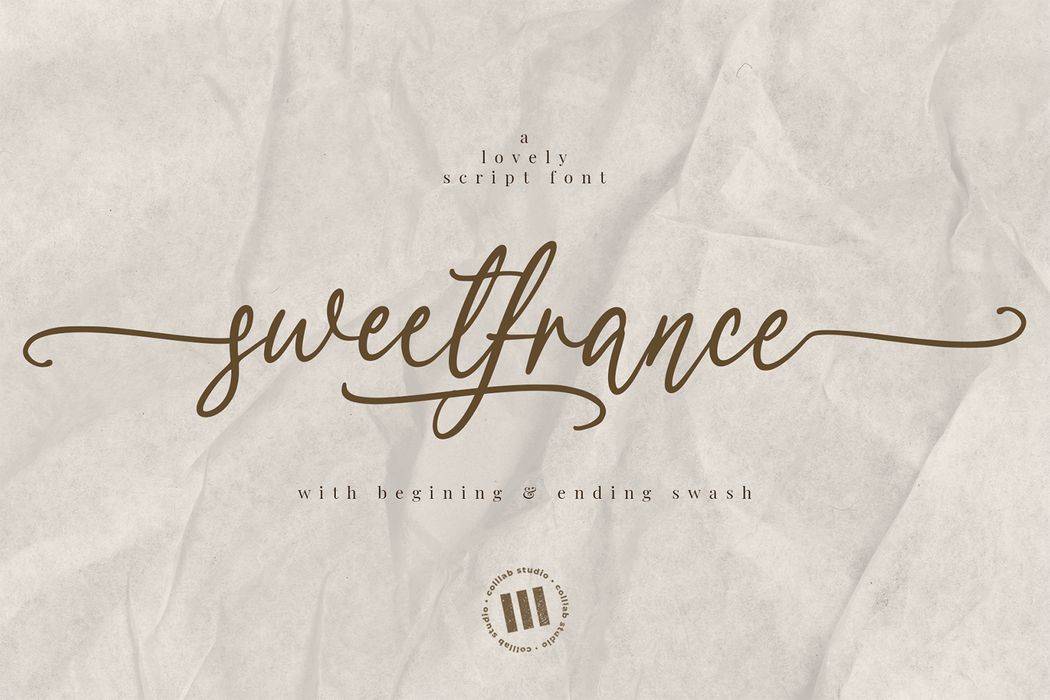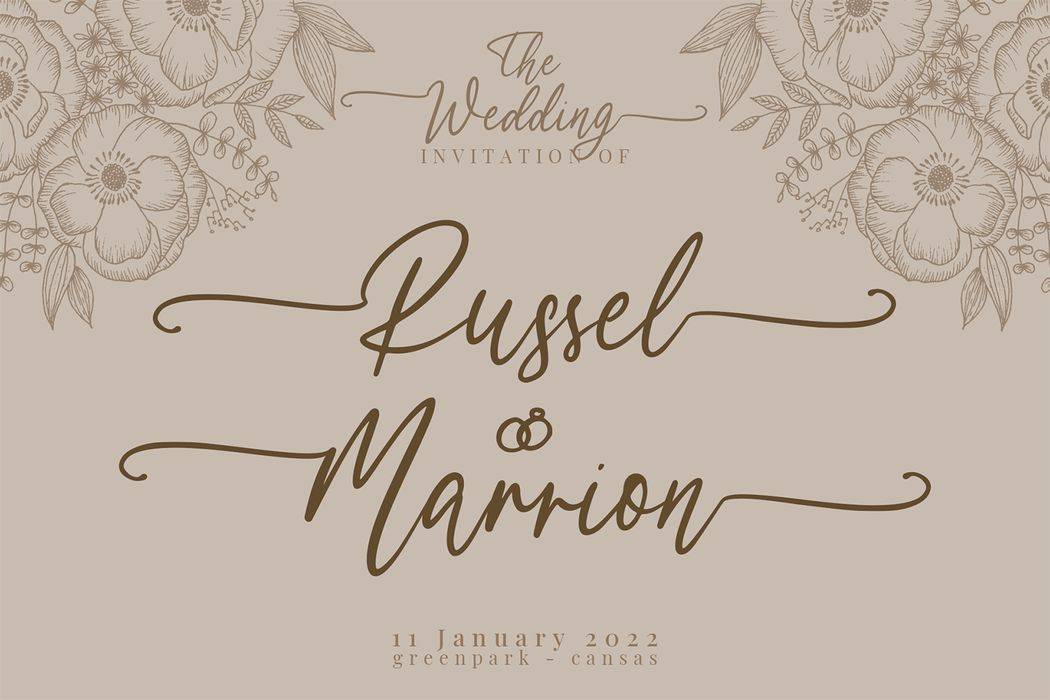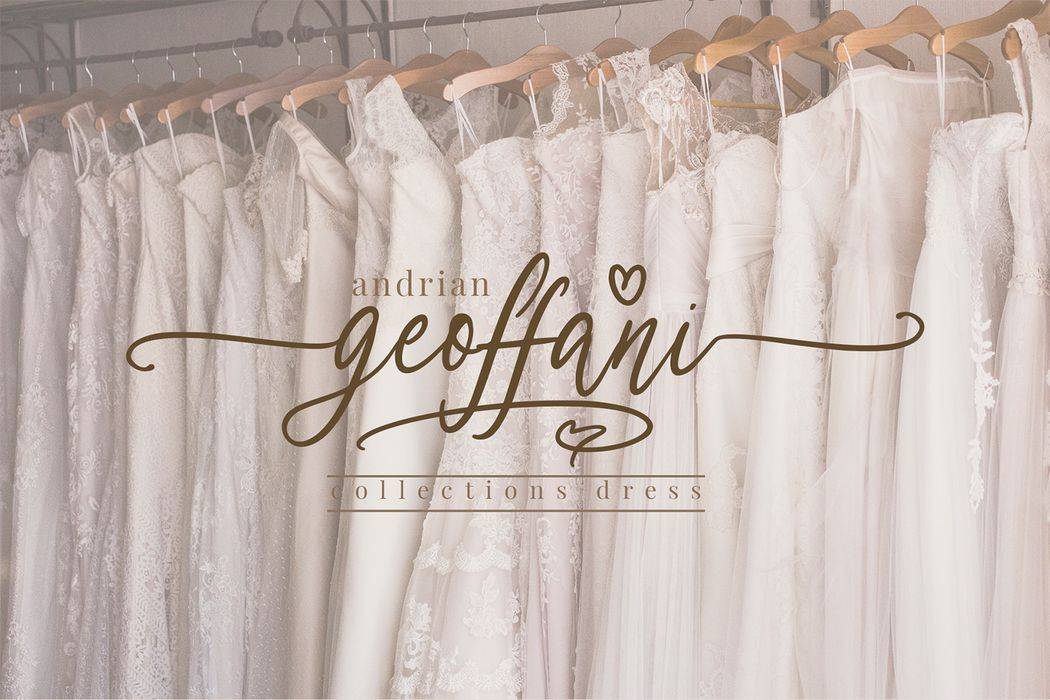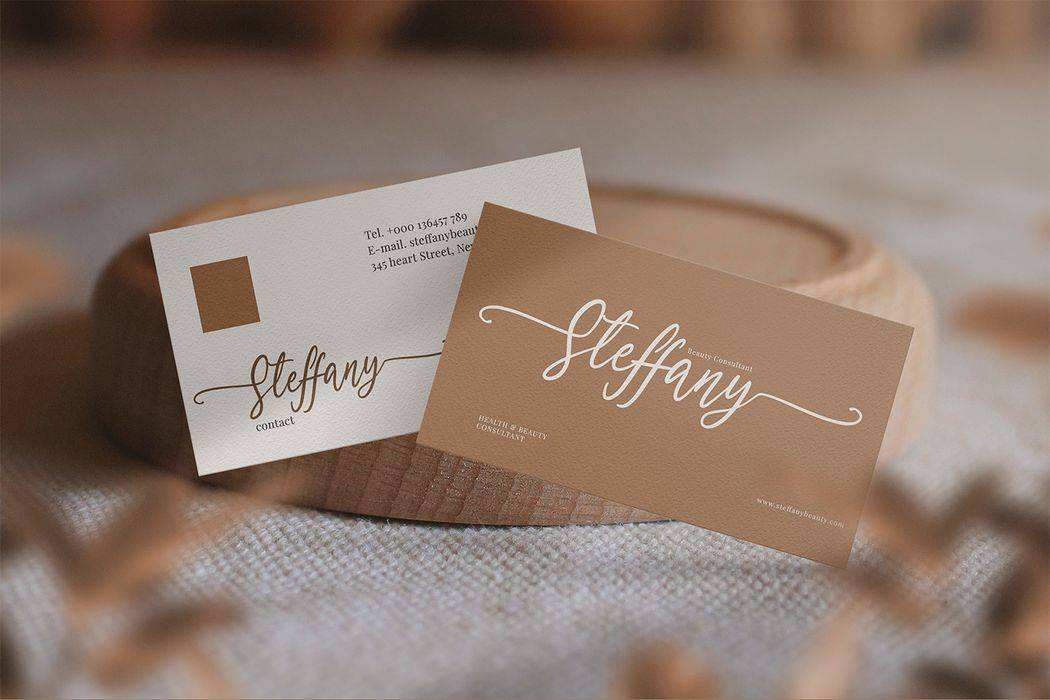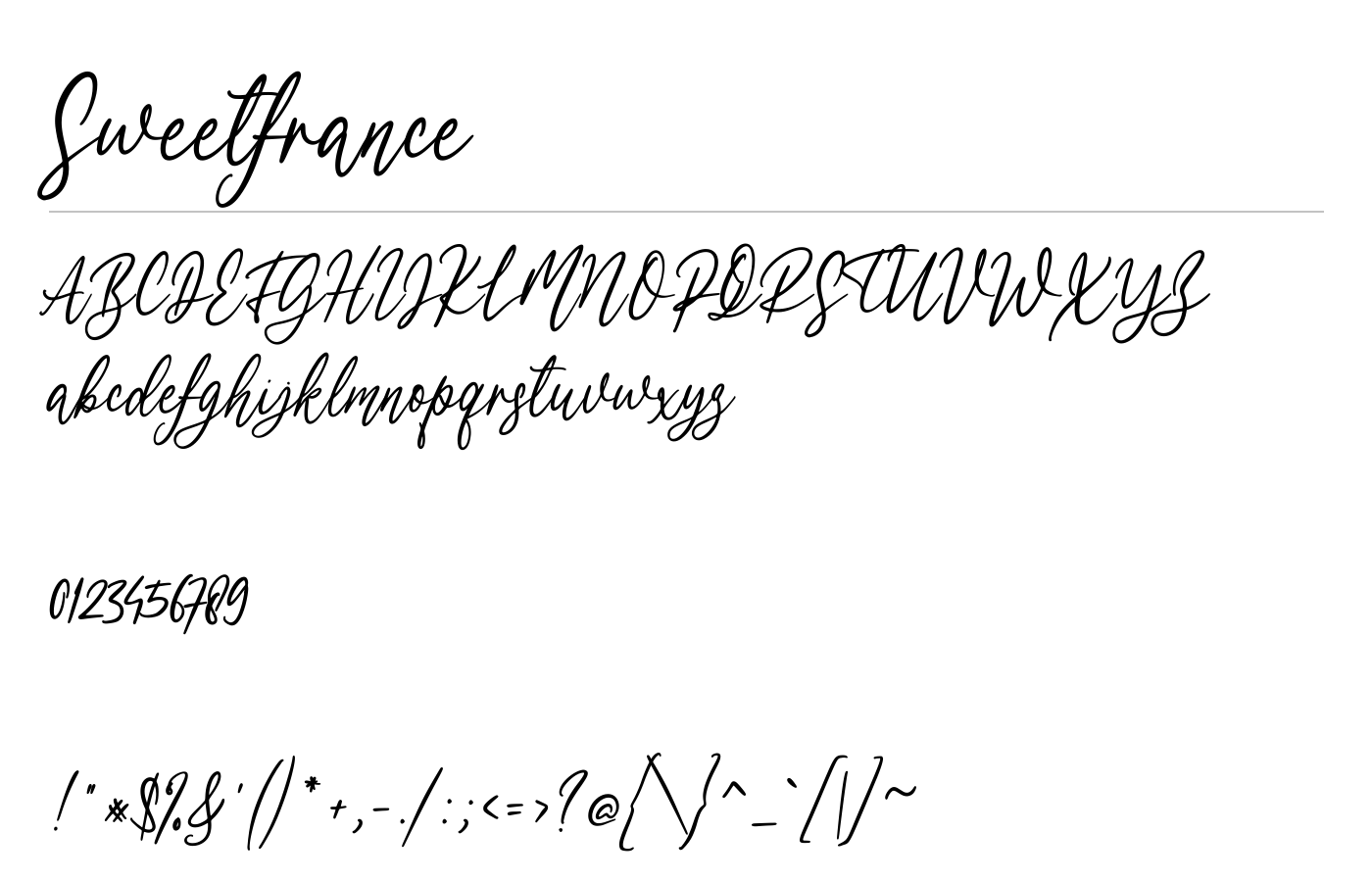
Sweetfrance is a stylish script font with a graceful, flowing design that evokes a handwritten, elegant feel. Its slender strokes and smooth curves make it perfect for branding, invitations, and fashion-related projects where a touch of sophistication and charm is needed. This font works beautifully in logos and headlines, bringing a personal and refined look to any creative design.
About Sweetfrance Font